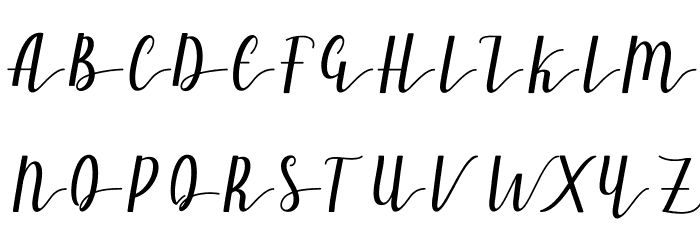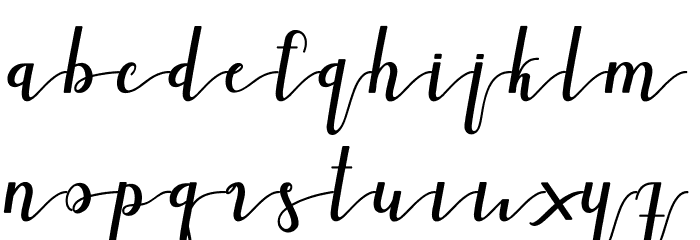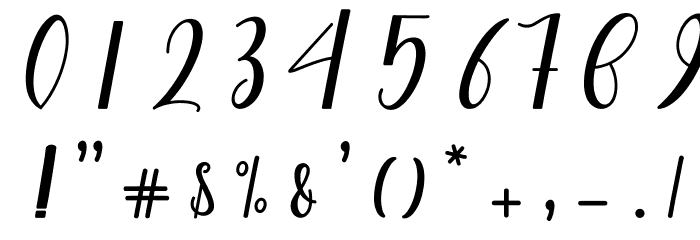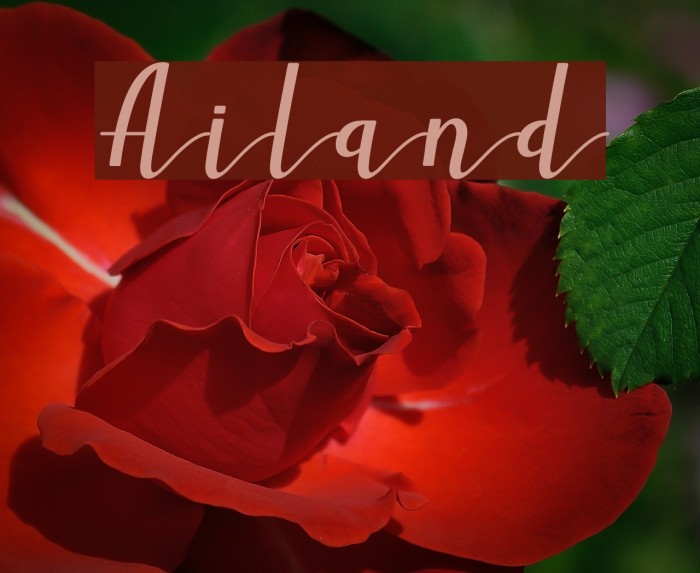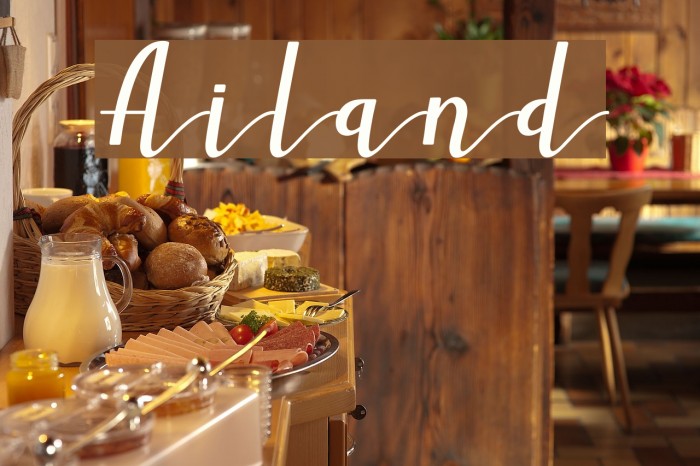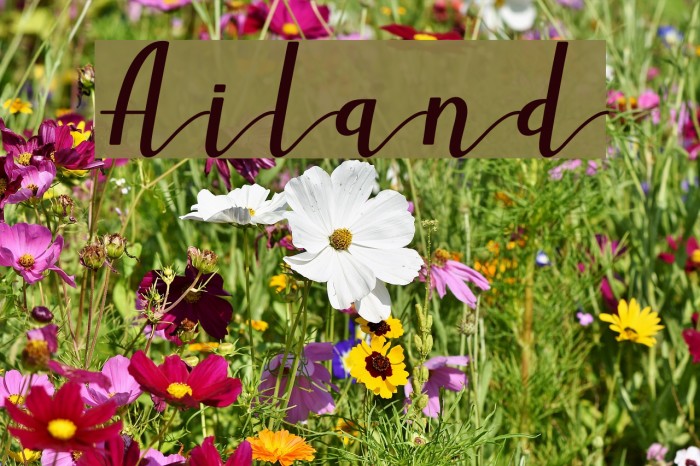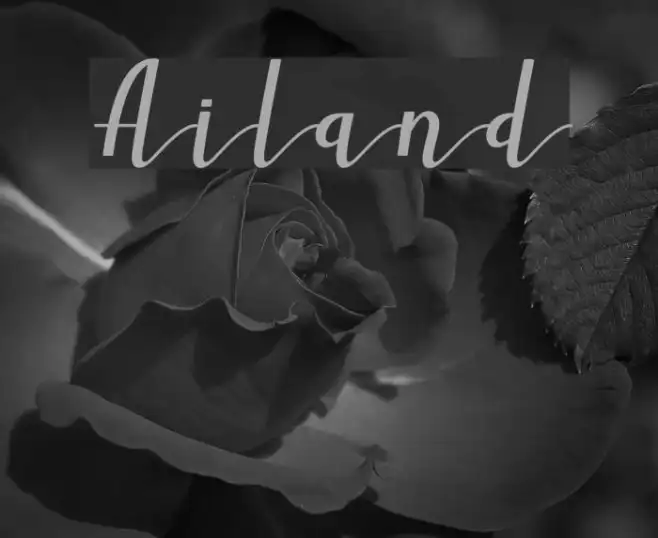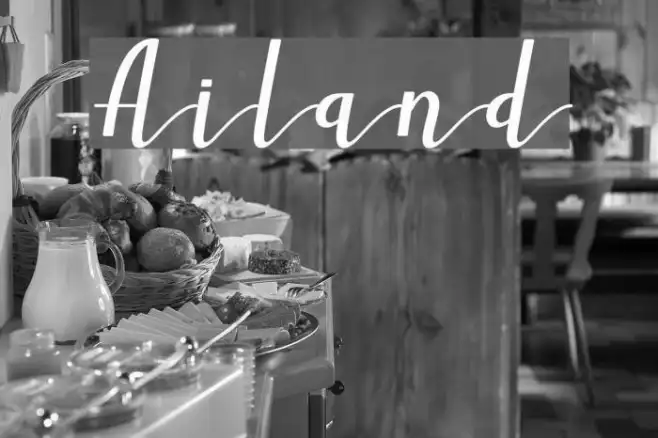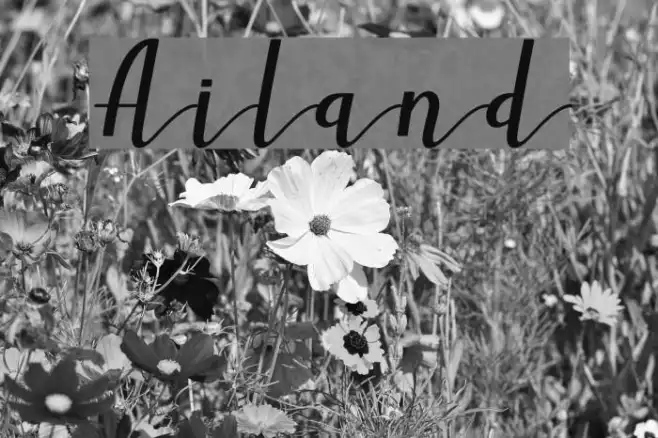
Ailand Font
This font features a flowing, cursive style with elegant, sweeping strokes that give it a handwritten appearance. The uppercase letters are characterized by their tall, slender forms with distinctive loops and flourishes, while the lowercase letters maintain a consistent, smooth flow. The numerals are stylishly crafted, maintaining the overall script aesthetic. Special characters are designed with the same attention to detail, ensuring a cohesive look across all glyphs. The font's design is both sophisticated and approachable, making it suitable for a variety of creative applications.
A flowing, cursive script font with elegant, sweeping strokes.
- Proposed Projects: Ideal for wedding invitations, greeting cards, branding, and logo design.
- Overall Style: Elegant, Handwritten
- Use Case: Logos, Invitations, Decorative text